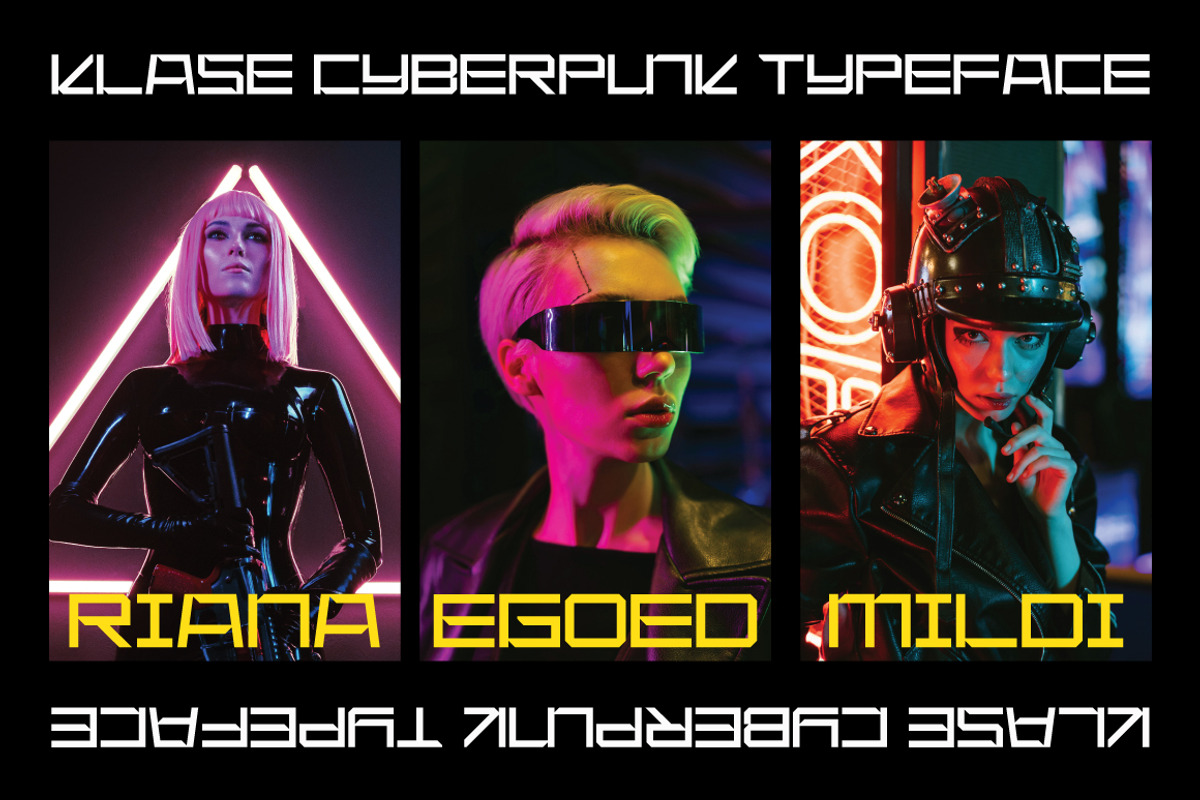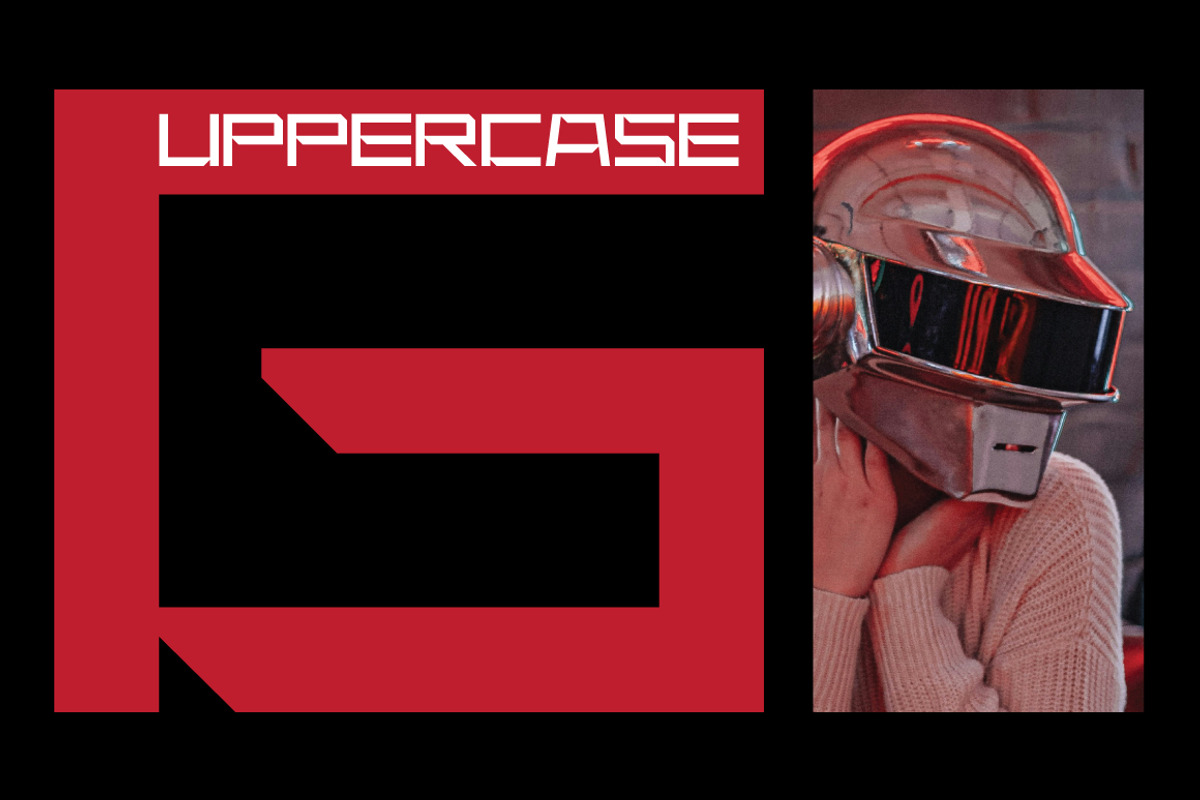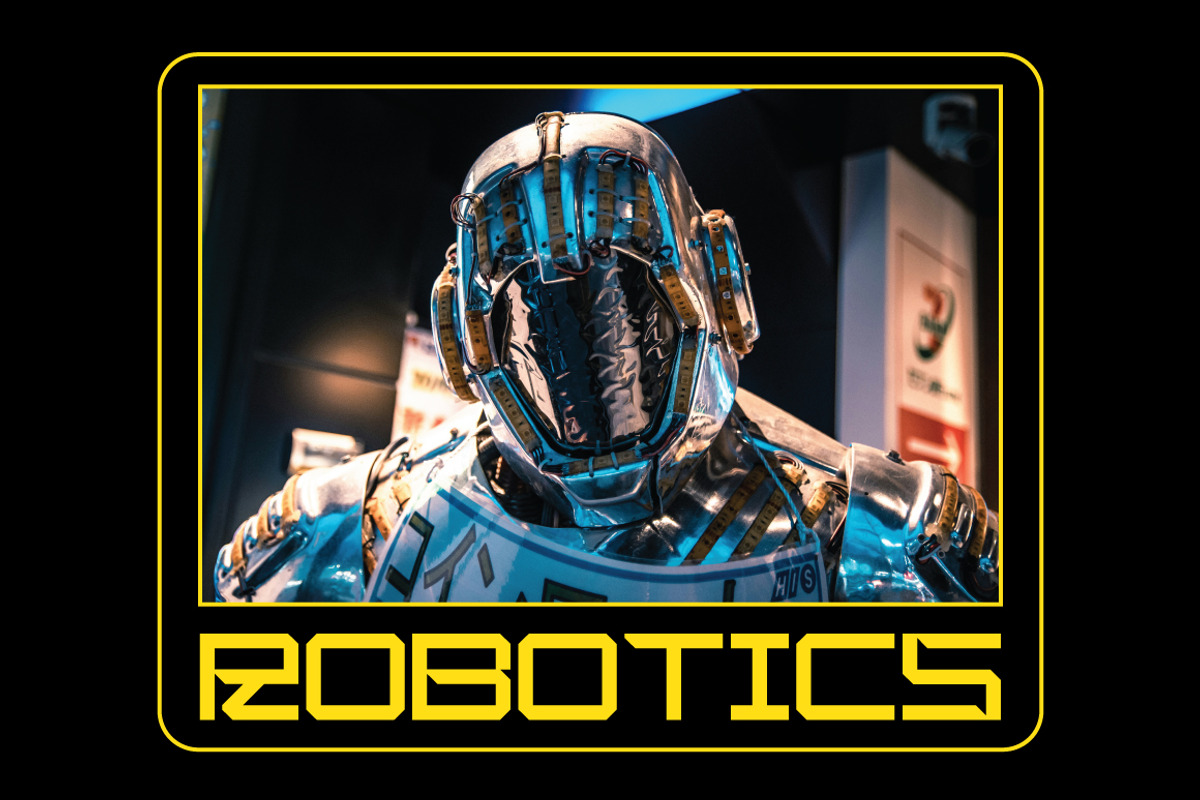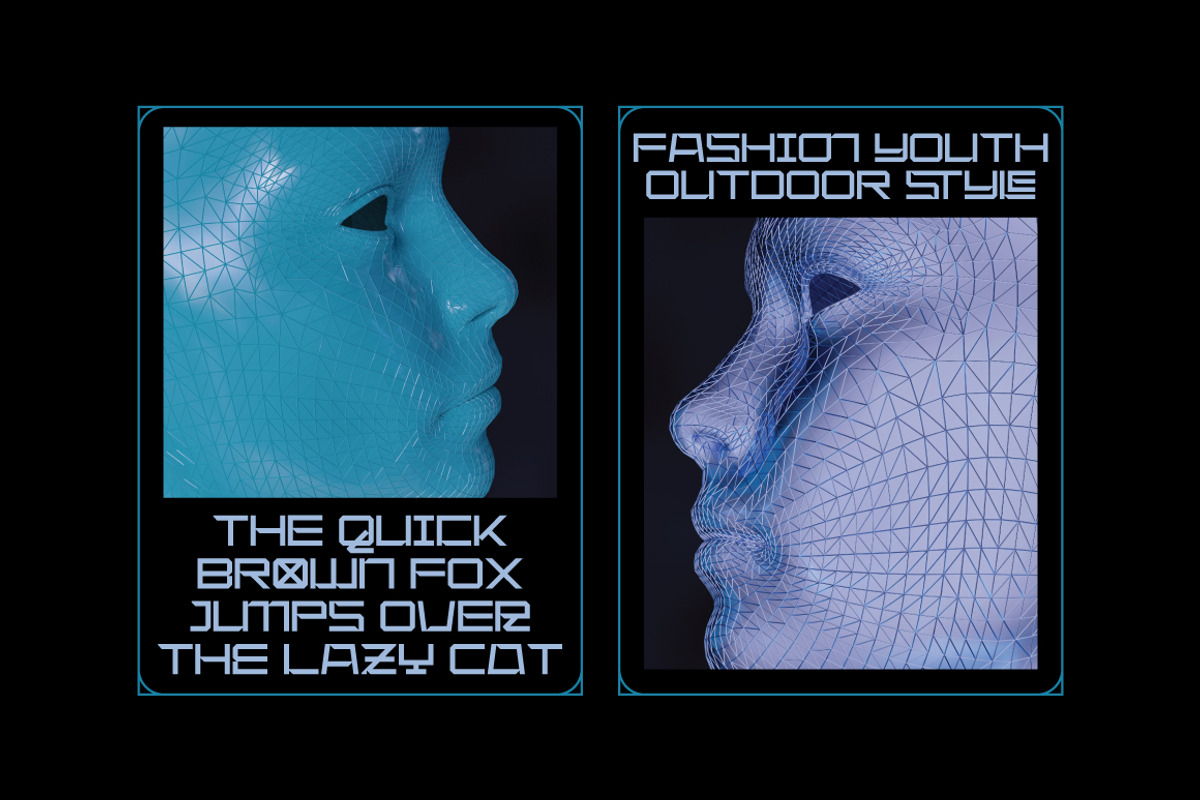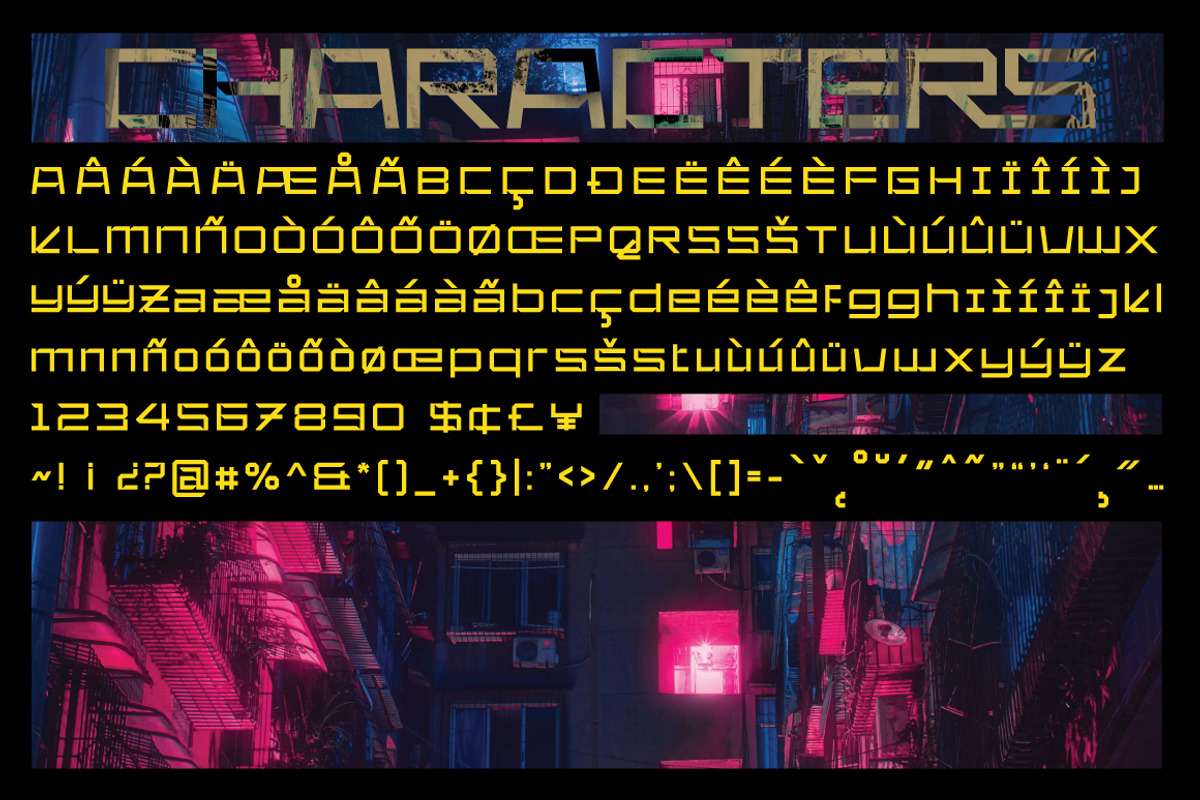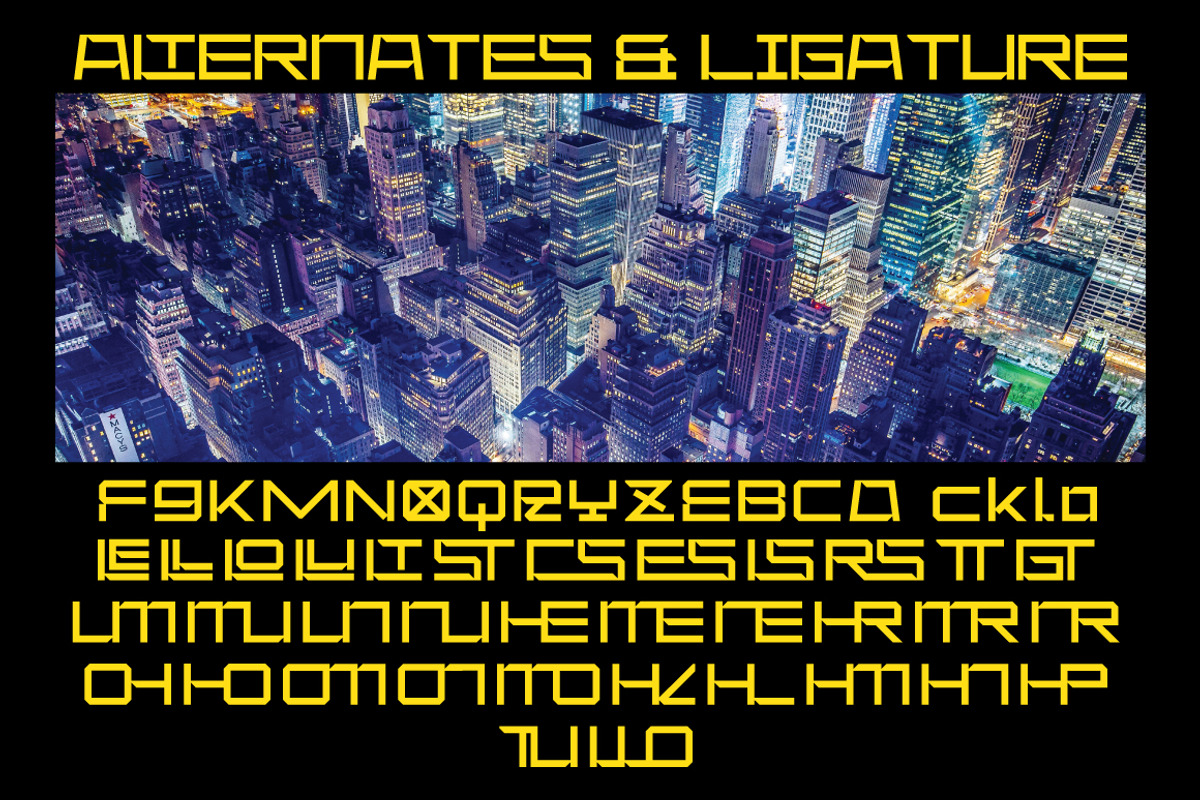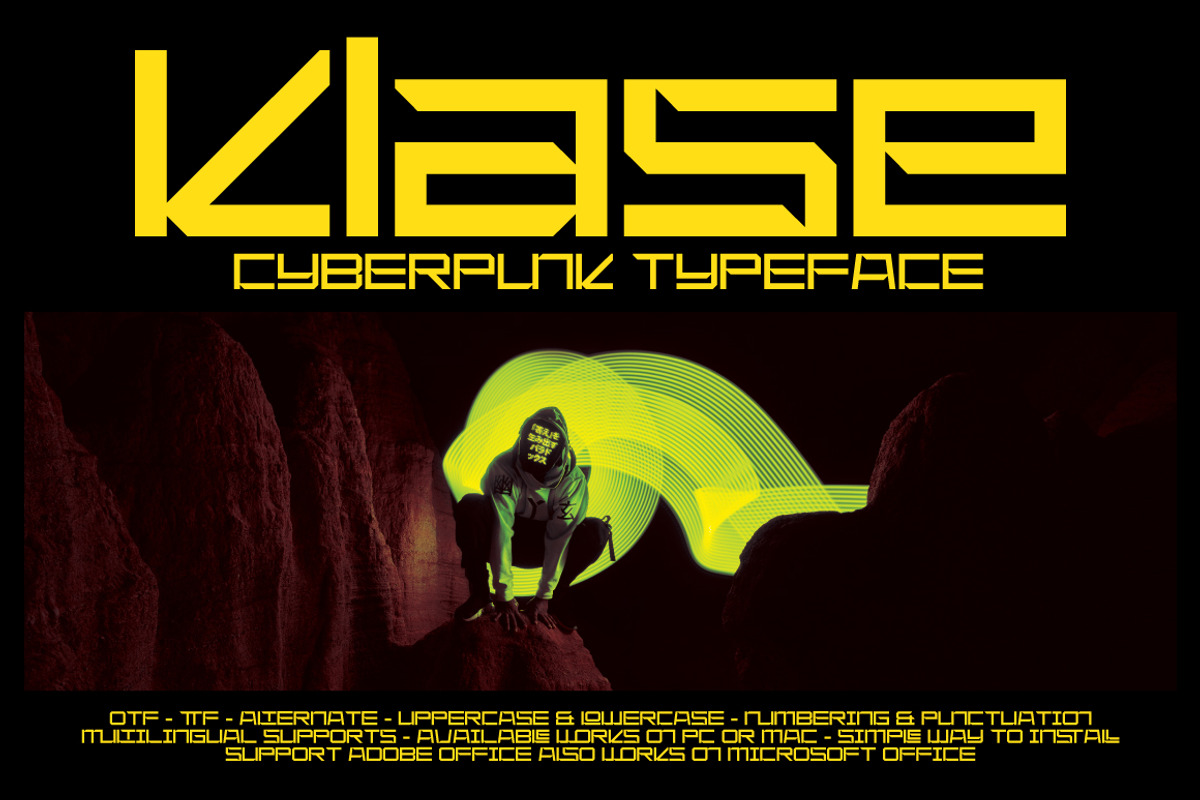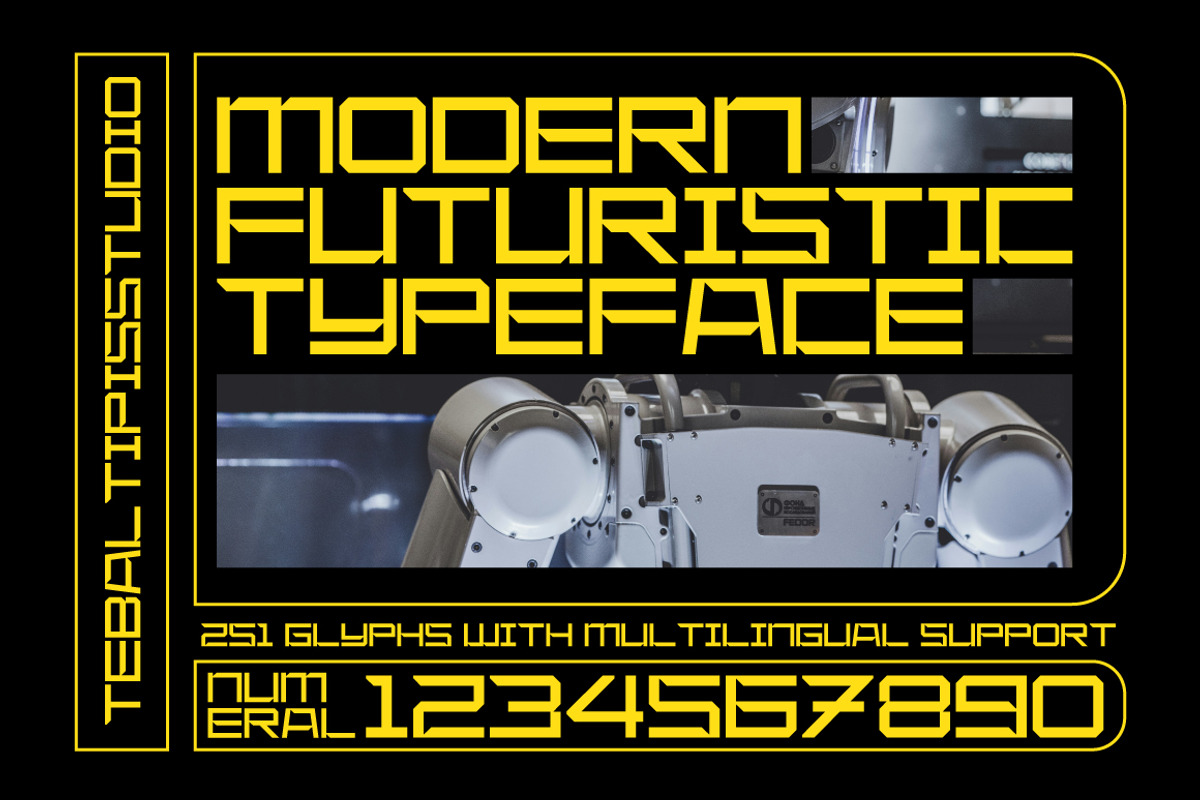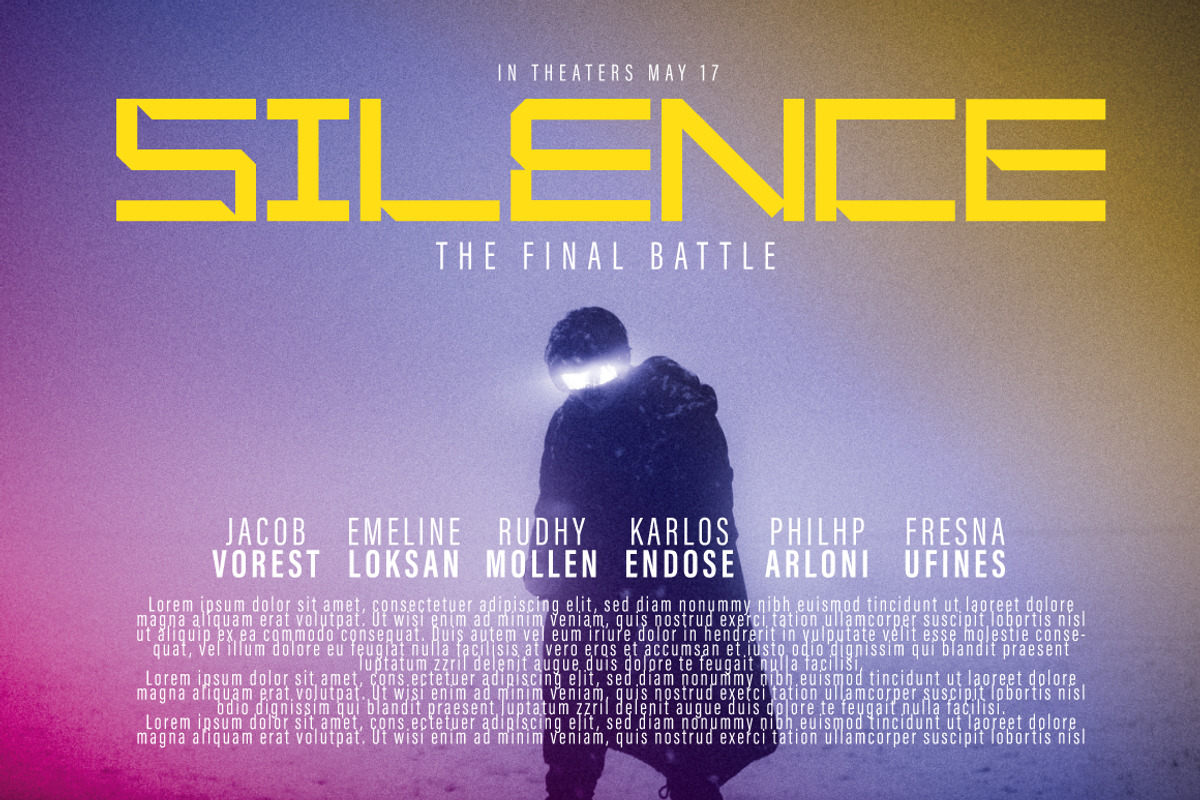
Klase - Cyberpunk Font
Klase Cyberpunk Font with a handmade Cyberpunk Font style, decorative characters and a dancing baseline!
Klase Cyberpunk Font come with 250+ glyphs. The alternative characters were divided into several Open Type features such as Swash, Stylistic Sets, Stylistic Alternates, and Ligature. The Open Type features can be accessed by using Open Type savvy programs such as Adobe Illustrator, Adobe InDesign, Adobe Photoshop Corel Draw X version, And Microsoft Word. And this Font has given PUA unicode (specially coded fonts). so that all the alternate characters can easily be accessed in full by a craftsman or designer.
Klase Cyberpunk Font Features :